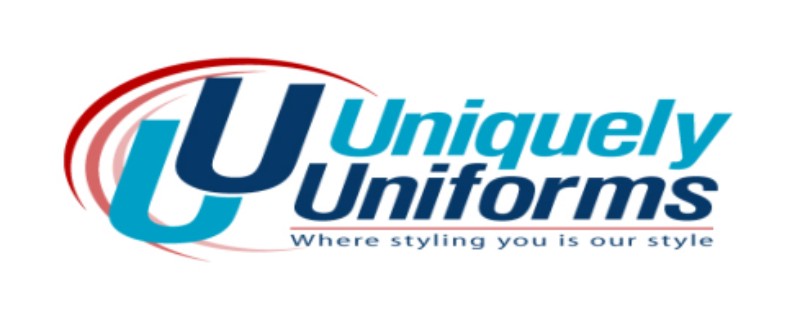
font ID...............
Shovelhead
can't place it.
What about in the Swiss family. It looks stretched though. For the bottom small type i would say either Frutiger or Myriad.